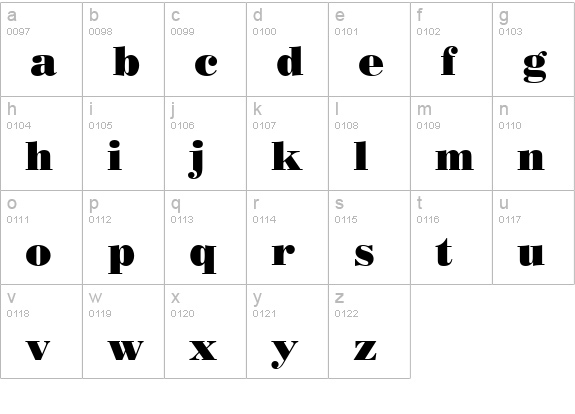
Poster Bodoni ATT Bold Font Details
Poster Bodoni ATT Bold is a strong, high-contrast variant in the Poster typeface family \xE2\x80\x94 well suited to headlines, attention-grabbing titles, and strong calls-to-action.
Poster Bodoni ATT Bold is a stunning and elegant display font that exudes sophistication and style. With its bold and commanding presence, this typeface is perfect for creating eye-catching headlines, posters, and advertisements. The strong vertical stress and sharp serifs of Poster Bodoni ATT Bold make it a versatile choice for both digital and print designs. This font is not only visually appealing but also highly readable, making it ideal for conveying important messages in a clear and impactful way. Whether you are designing a bold statement piece or a refined corporate communication, Poster Bodoni ATT Bold is sure to make a lasting impression. Best of all, Poster Bodoni ATT Bold is available for free download at FontsMarket.com, making it easily accessible to designers and creatives looking to add a touch of sophistication to their projects. Don't miss out on the opportunity to elevate your designs with this exquisite typeface. Download Poster Bodoni ATT Bold today and bring your creative vision to life!